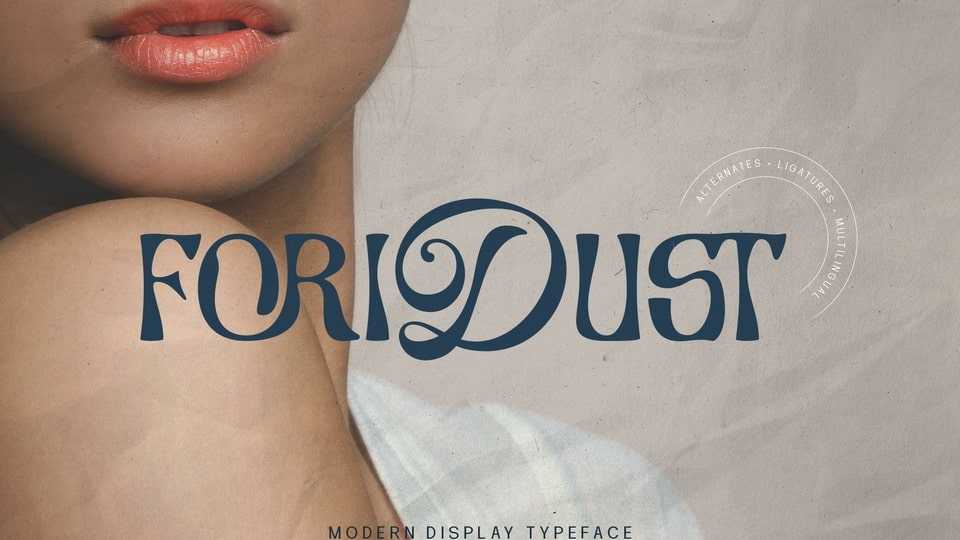
Download Foridust font, a display typeface designed with the concept of a slightly distorted style in its body shape. Foridust font has a modern serif style combined with elegant script-style letters.